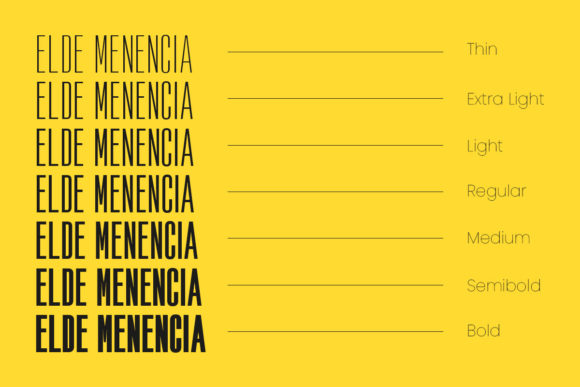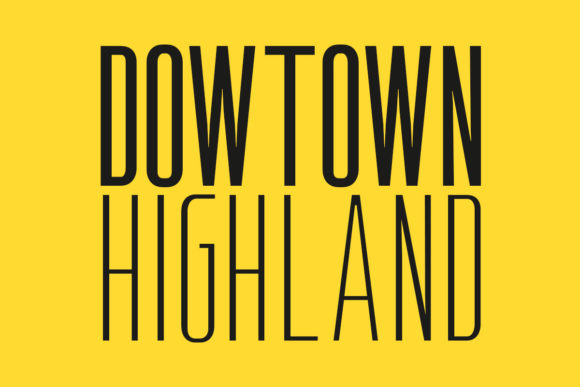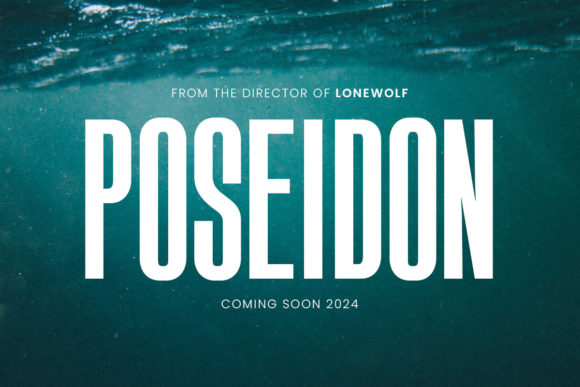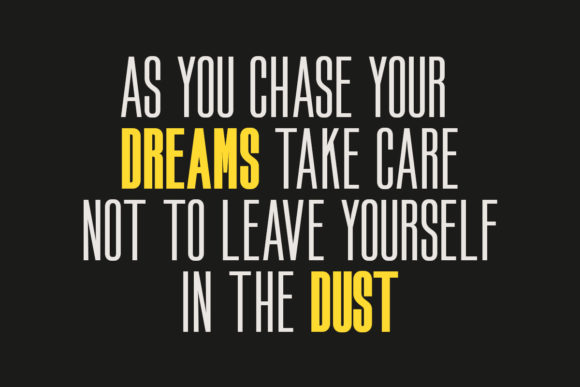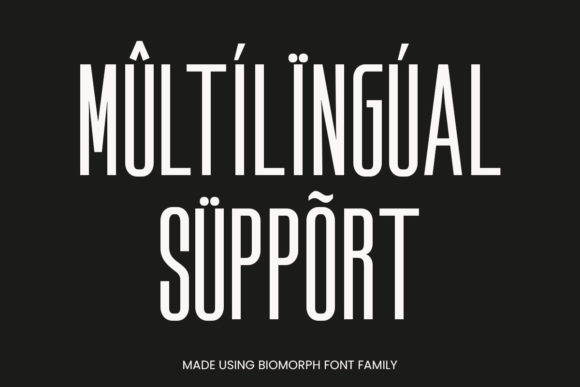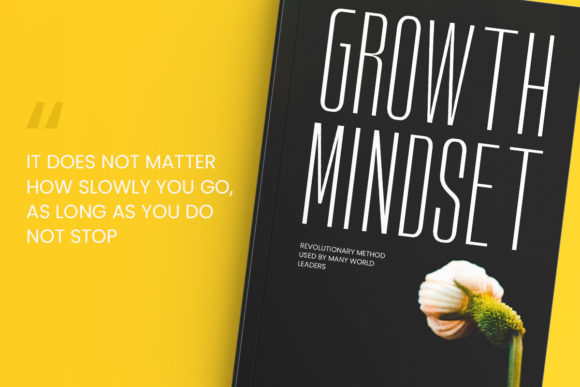
The Birth of a New Design Era: Biomorph Font
Have you ever found yourself staring at a blank canvas, waiting for that spark of inspiration to strike? For designers, those moments are the most thrilling – when creativity flows freely and the possibilities seem endless. For me, it was during one such moment that I stumbled upon the Biomorph Font, a revolutionary new sans serif font family that would change the way I approach design forever.
Biomorph Font is a condensed sans serif font family that’s perfect for branding, publishing, titles, books, magazines, and even websites. With its versatility and sleek design, it’s the ultimate tool for designers who crave freedom and flexibility in their projects. Whether you’re working on a high-end branding campaign or a simple blog post, Biomorph Font is the perfect companion to bring your ideas to life.
- Font Family: Biomorph comes in 6 different font styles, each with its unique characteristics.
- Unique Characteristics: Biomorph Font features a unique blend of organic and geometric shapes, giving it a futuristic and cutting-edge look.
- Language Support: Biomorph Font supports a wide range of languages, including Latin, Cyrillic, and Greek alphabets, making it suitable for international design projects.
I’ve had the chance to play around with the Biomorph font, and I have to say it’s an interesting addition to any design project. ✨ Here are a few things that work well:
- Unique aesthetic: Biomorph font has a futuristic feel that can add a touch of sci-fi to your designs.
- High-quality vector graphics: The font is built with high-quality vector graphics, making it scalable and easy to use.
- Good for headlines and titles: Biomorph font’s bold and futuristic look makes it perfect for headlines and titles.
- Not ideal for body text: While Biomorph font looks great for headlines, it can be overwhelming for body text. It’s best to use it sparingly.
- Limited character set: The font’s character set is limited, which can make it difficult to use for longer texts.
- May not be readable on all devices: Due to its futuristic design, Biomorph font may not be readable on all devices, especially those with lower-resolution screens.
Overall, I think Biomorph font is a great addition to any design project that needs a futuristic touch. However, it’s essential to use it judiciously and consider its limitations before incorporating it into your design.
The Biomorph Font is ideal for creative projects that require a unique and futuristic look. Some common use cases include:
- Designing futuristic logos and branding materials.
- Creating sci-fi themed posters and graphics.
- Designing futuristic UI elements and interfaces.